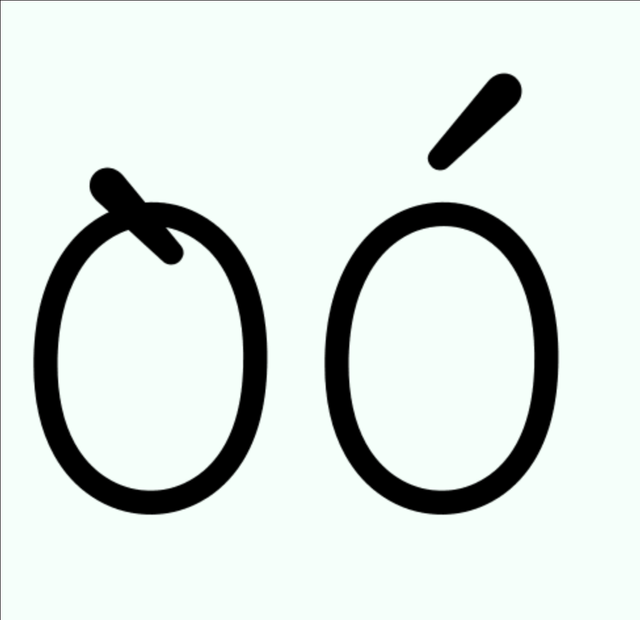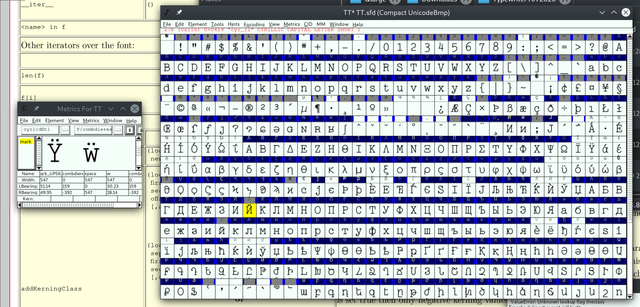
The use of Unicode data in font creation
I've worn many hats over the years…one of my favorites is FontForge contributor. Back on August 13th, I made it so when you close the Execute Script dialog, you won't lose the associated script.
One reason for that is I frequently write useful scripts which I accidentally lose when closing FontForge. Today I'll present one.
I'm making a typewriter font…have been since May! One of the things that makes this font different is that when two same letters are nearby they do not look identical, unlike almost every font in existence…minus another font of mine, Quaerite Regnum Dei. 😉
What I'm going for with this project is maximum realism. I've studied output of real typewriters a little too much, and tinkered with GIMP scripts a little way too much, to get acceptable procedurally generated output. So, the precomposed characters in this font, according to my vision, should look as if they were made on a typewriter—type the base letter, backspace, type the mark. Meaning, marks, within reason, must not move from letter to letter; ñ and ã must have the mark in the same place if overlaid on top of one another, same with Ñ and Ã, however I'm willing to imagine a typewriter with two versions of each mark, one for uppercase and lowercase letters.
So unlike basically all fonts where what you want to do is place anchors carefully on each letter, in this font we want uniformity. That means we can use the FontForge Python API to place our marks. Another anomaly is that we really only need one mark (Mark to Base Positioning) class, let's call it themarkclass, even though this font has some top marks, bottom marks, even the Hebrew dagesh middle mark, because it's monospaced.
Here's a script to figure out which characters should get marks:
We get some interesting output like:
All right! And for our marks we can just say:
Now we've got as well:
All that's left to do is use the FontForge API to add the marks...
And let's also add the needed tables!
Voilà!
Now we can tell FontForge we want it to generate Latin-1 for us just by going to the Element→Build menu; as long as we have the letters needed, and the marks needed (it's best for Latin-1 to add 0-width marks to the block beginning at U+0300), it will build them. Be aware, if that's not true, it will do its best, and its best is often...terrible.
Can you tell which one FontForge generated?